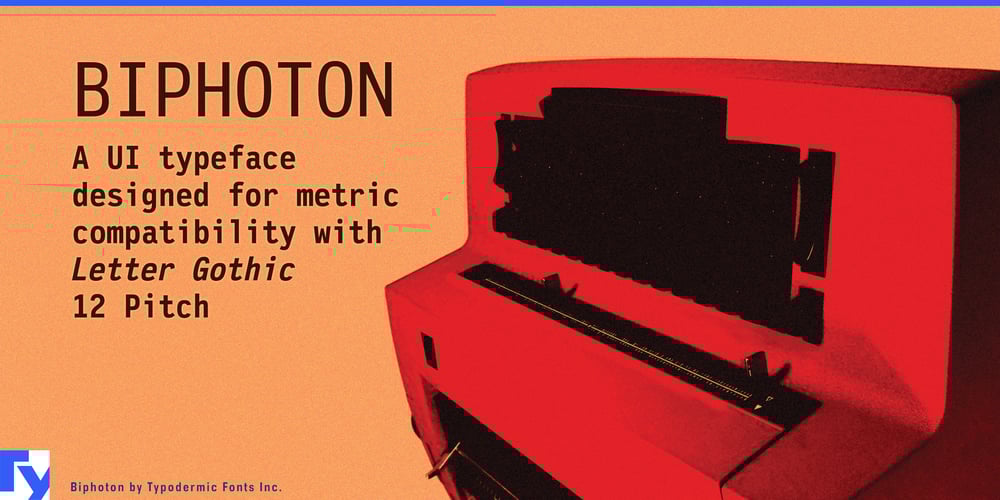
Biphoton Font Family was designed by Ray Larabie and published by Typodermic. Biphoton contains 4 styles and family package options. Step into the future of screen typography with Biphoton, a meticulously crafted monospaced sans-serif typeface that redefines clarity for captions and user interfaces. Echoing the proportions of Letter Gothic 12 Pitch, Biphoton offers a seamless replacement while surpassing its predecessor in screen optimization—ensuring your message resonates with unparalleled impact.This thoughtfully designed typeface doesn’t just match Letter Gothic; it elevates it. Biphoton’s arsenal includes a comprehensive set of currency symbols, numeric ordinals, primes, and common precomposed fractions—all tailored to convey information with pinpoint accuracy. Available in Regular, Italic, Bold, and Bold Italic TrueType formats, Biphoton integrates effortlessly into your design ecosystem, whether you’re crafting for mobile devices or desktop applications.Biphoton’s linguistic versatility is as impressive as its visual clarity. It speaks the language of global design, offering support for most Latin-based European languages, Vietnamese, Greek, and a wide array of Cyrillic-based writing systems. From the flowing scripts of Western Europe to the intricate characters of Southeast Asia, Biphoton ensures your message transcends borders without losing its edge.In a world where every pixel counts, Biphoton stands as a testament to the power of purpose-built typography. It’s not just a font; it’s a communication tool that brings precision to every character, every line, and every screen. Choose Biphoton when you need a typeface that performs as impressively as it looks—because in the realm of digital design, clarity is king.